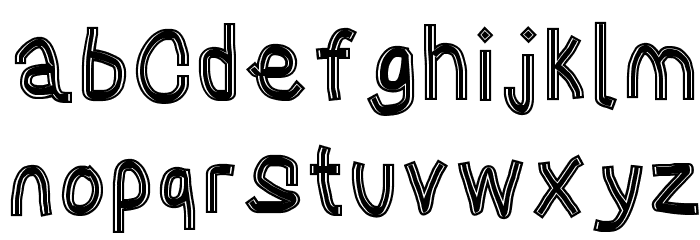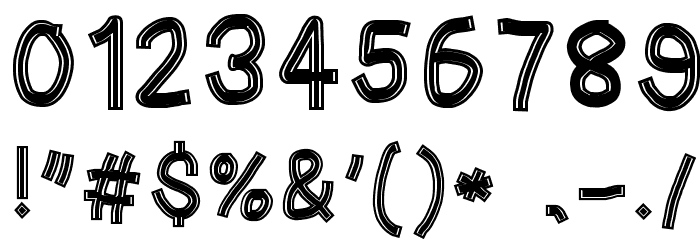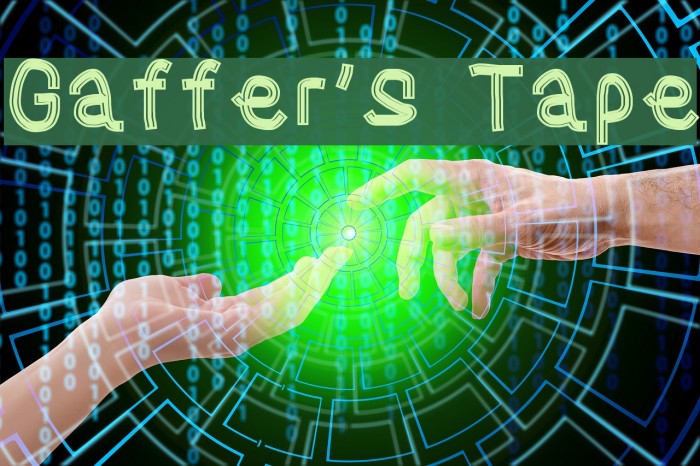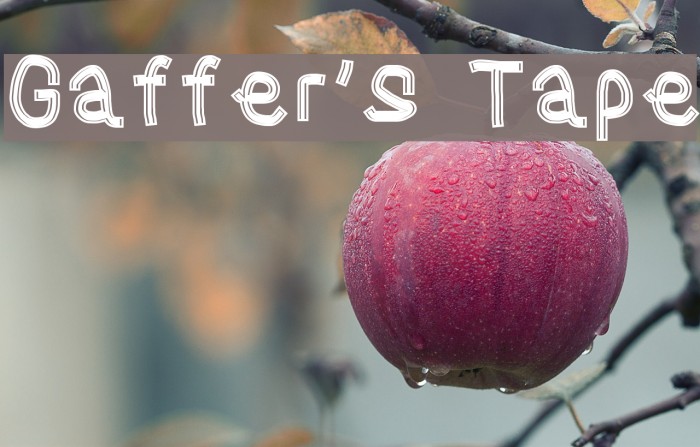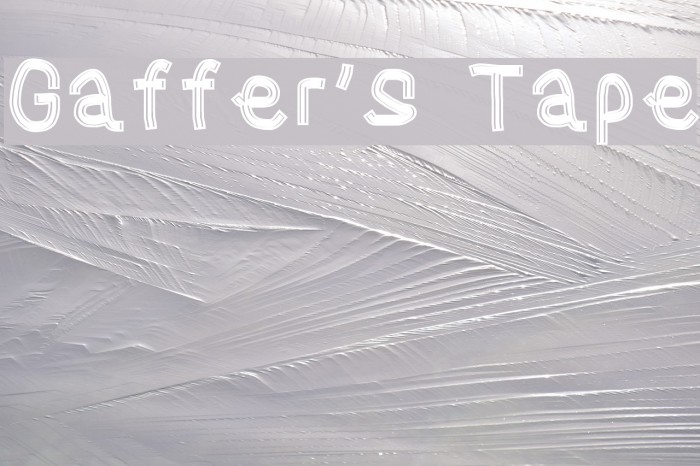
Gaffer's Tape Font
This font features a bold, playful design with a hand-drawn aesthetic. The characters are outlined with a shadow effect, giving them a three-dimensional appearance. The strokes are uneven and organic, adding a casual and informal feel. The uppercase and lowercase letters maintain a consistent style, with rounded edges and a slightly irregular form. Numbers and special characters follow the same design principles, ensuring a cohesive look throughout. This font is ideal for projects that require a fun and quirky touch, such as children's books, posters, and creative branding.
A bold, playful font with a hand-drawn, three-dimensional look.
- Proposed Projects: Ideal for children's books, posters, creative branding, and playful designs.
- Overall Style: Playful, Hand-drawn